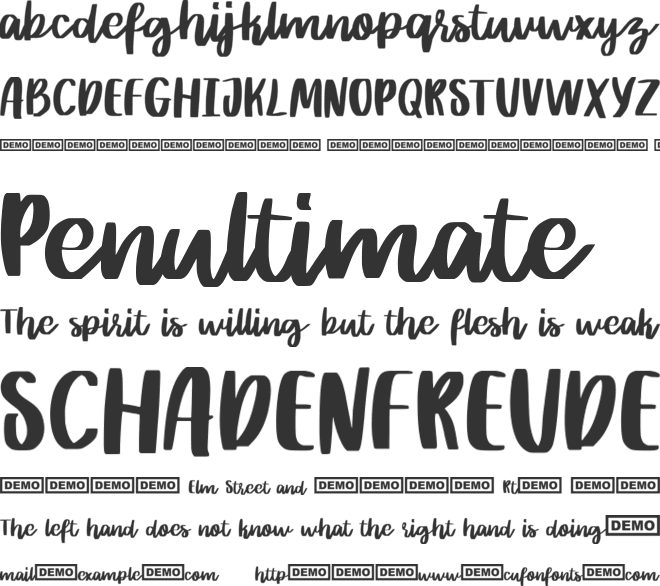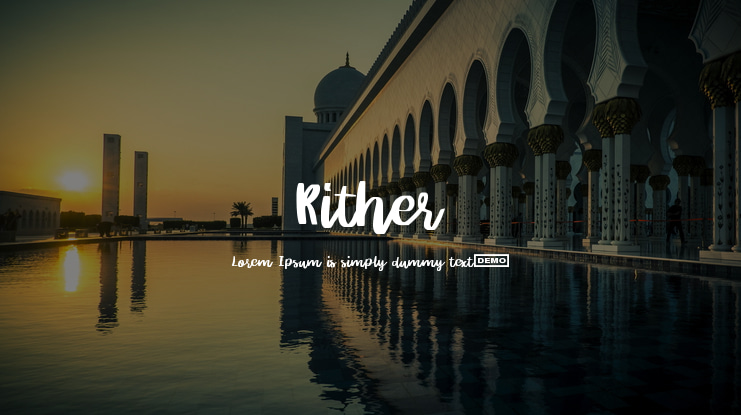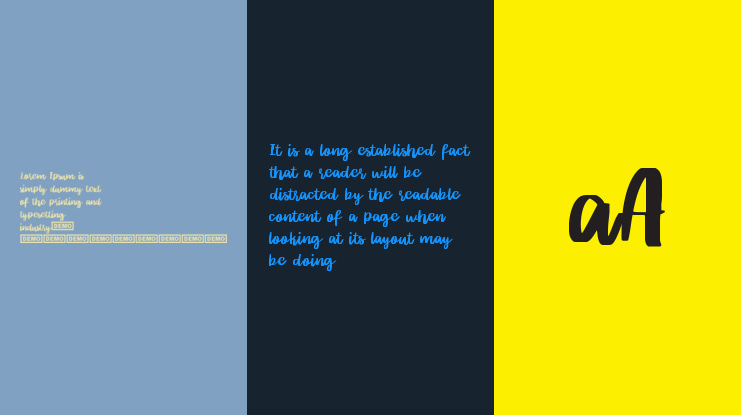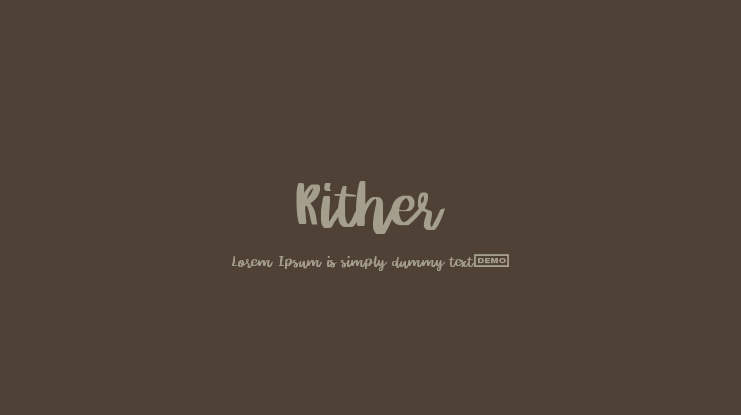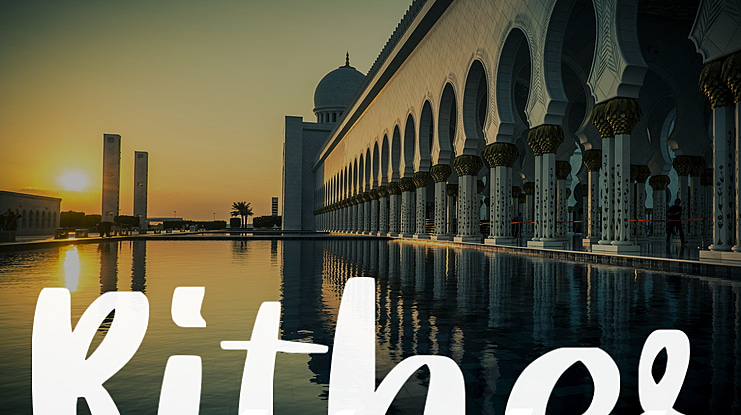
Rither Font
Do you want to give a cheerful and carefree mood to your work? Rither will ideally help to bring your ideas into reality! Rither was created for warm emotions and the most cheerful progects!Full version of Rither comes with uppercase, lowercase, standard punctuation and special letters for most of the European languages.